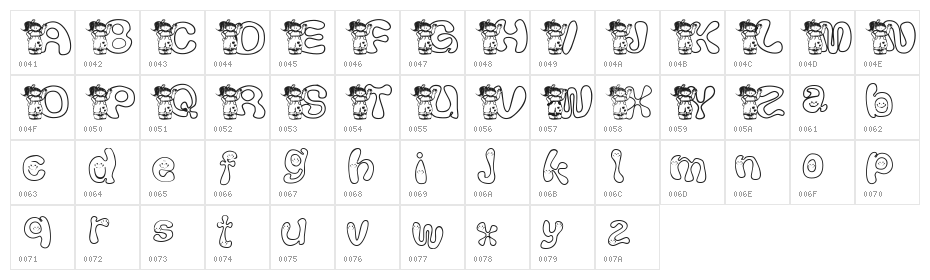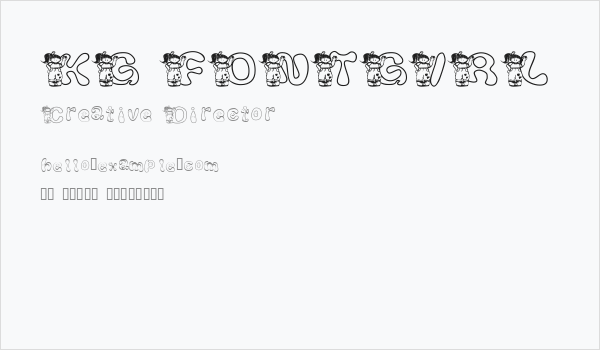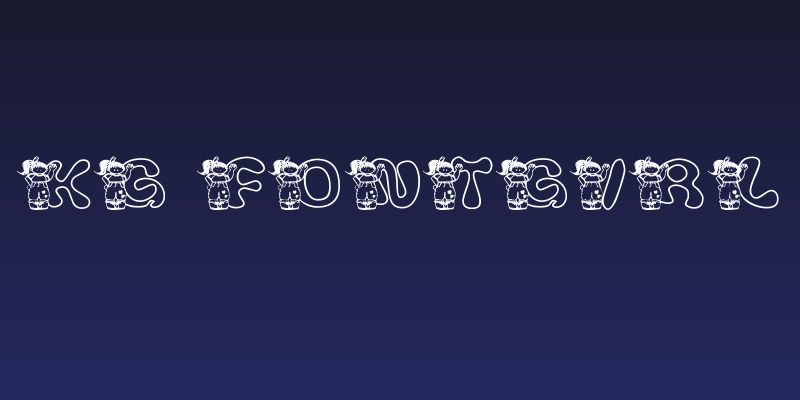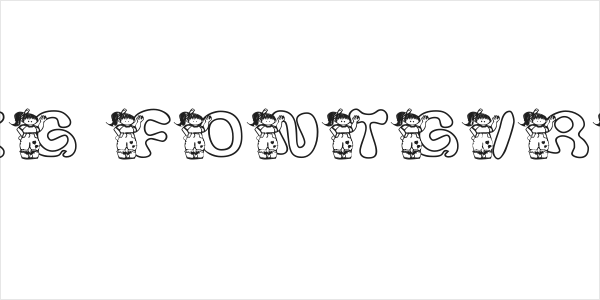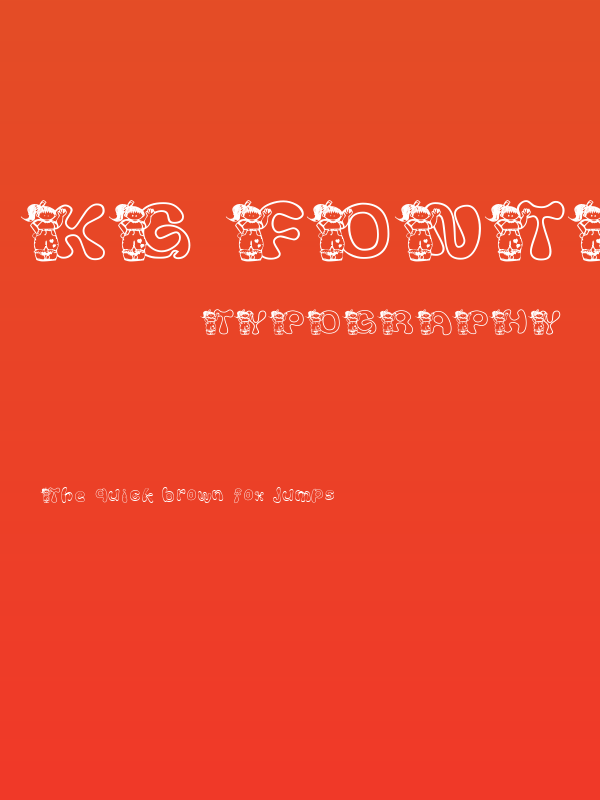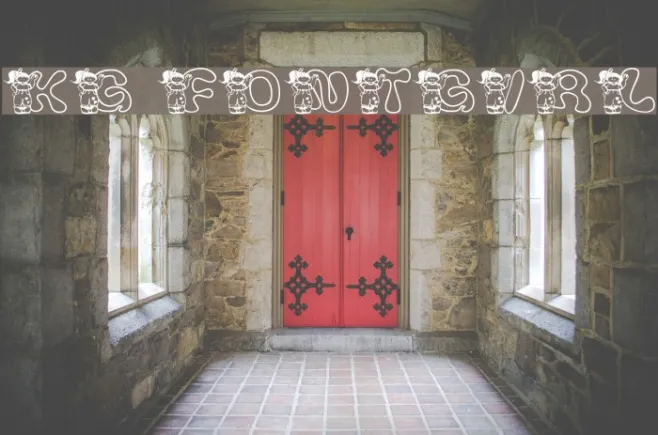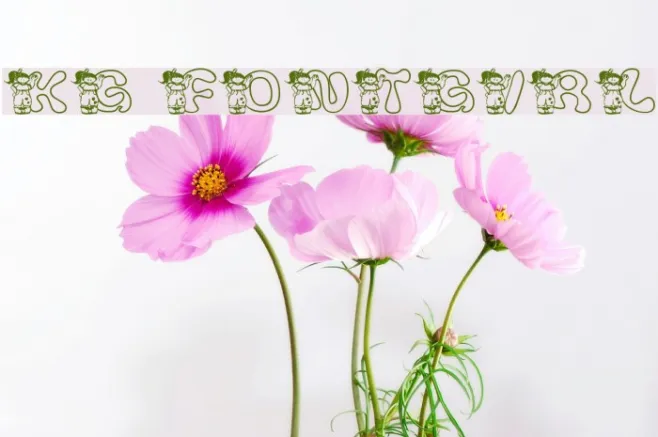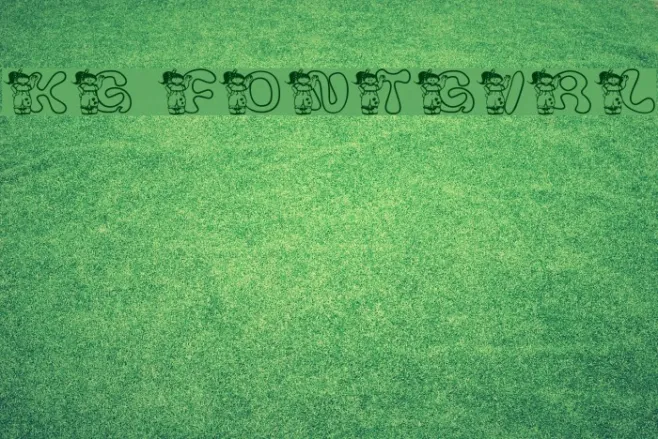
KG FONTGIRL Font
KG FONTGIRL Description
This playful and whimsical font features characters that are creatively integrated with cartoon-like elements, giving each letter a unique and fun appearance. The uppercase letters are adorned with charming illustrations, while the lowercase letters maintain a bubbly and rounded style. The font is highly decorative, making it ideal for projects that require a touch of humor and creativity. The overall design is light-hearted and engaging, perfect for children's materials or playful branding. The characters are well-spaced, ensuring readability despite their intricate designs.
| Proposed Projects | Ideal for children's books, playful branding, party invitations, and educational materials. |